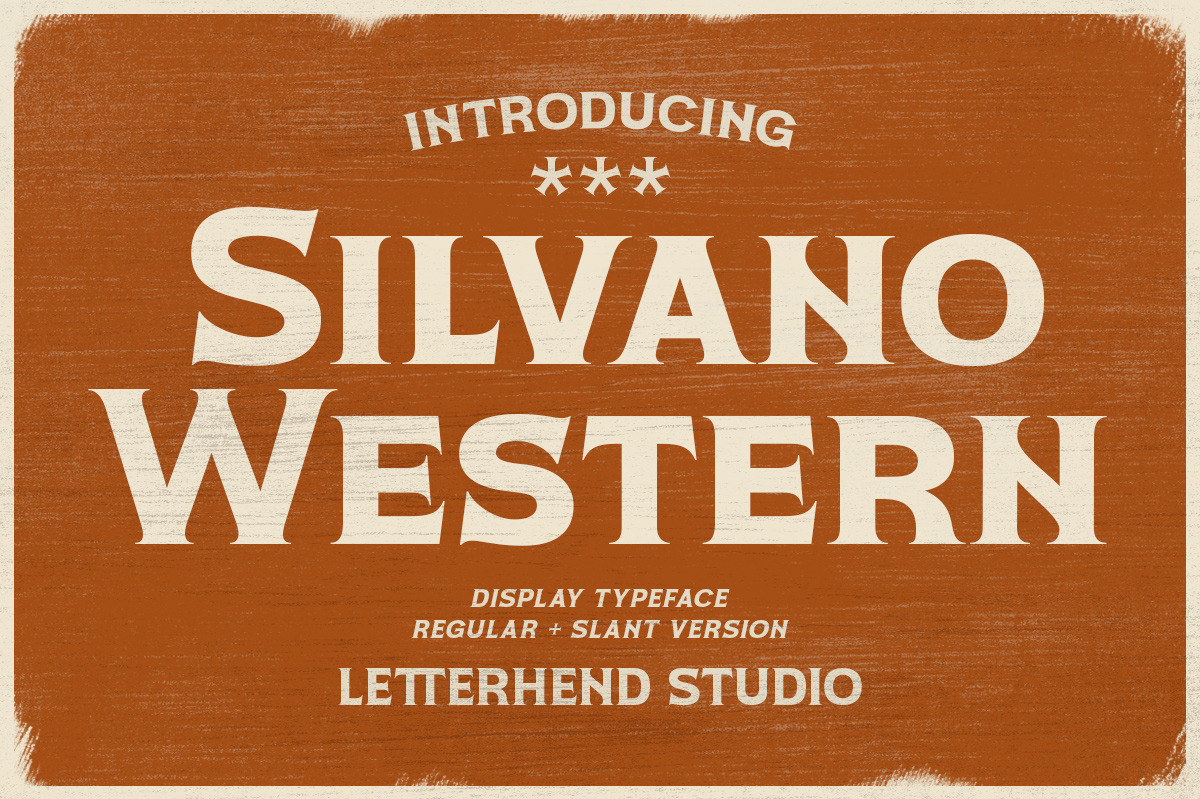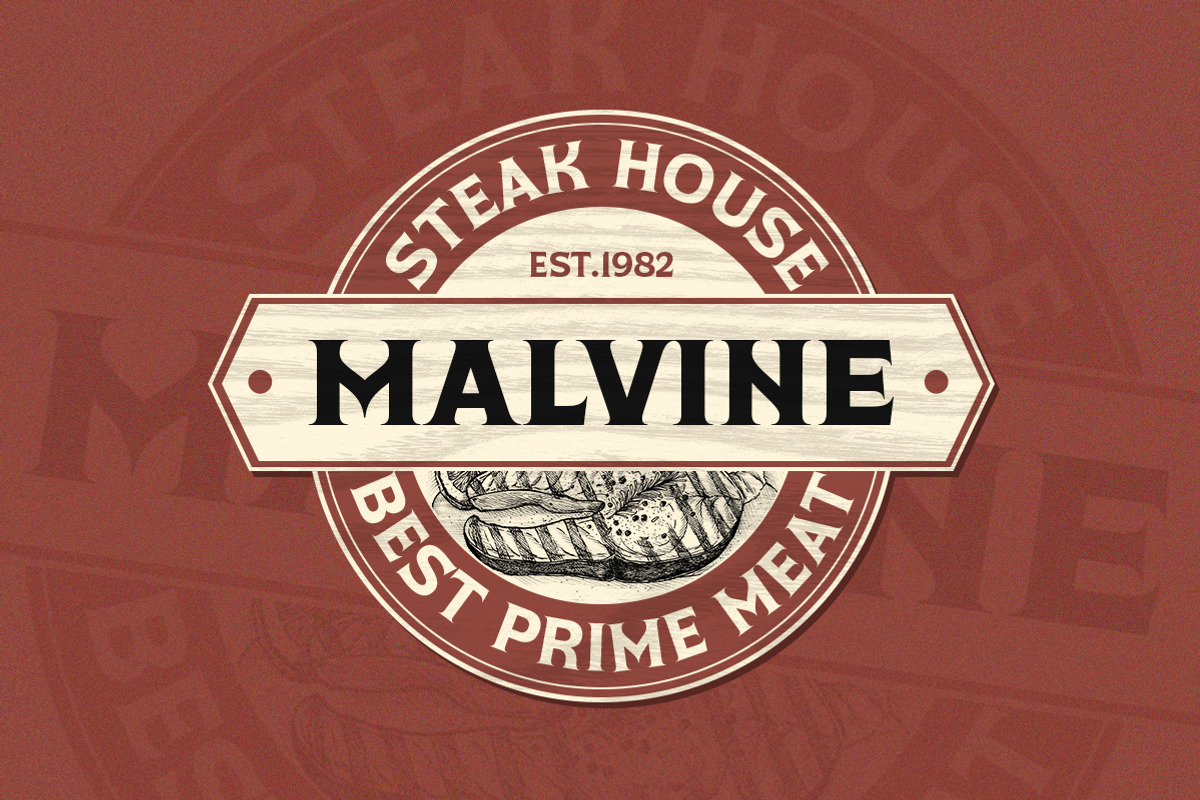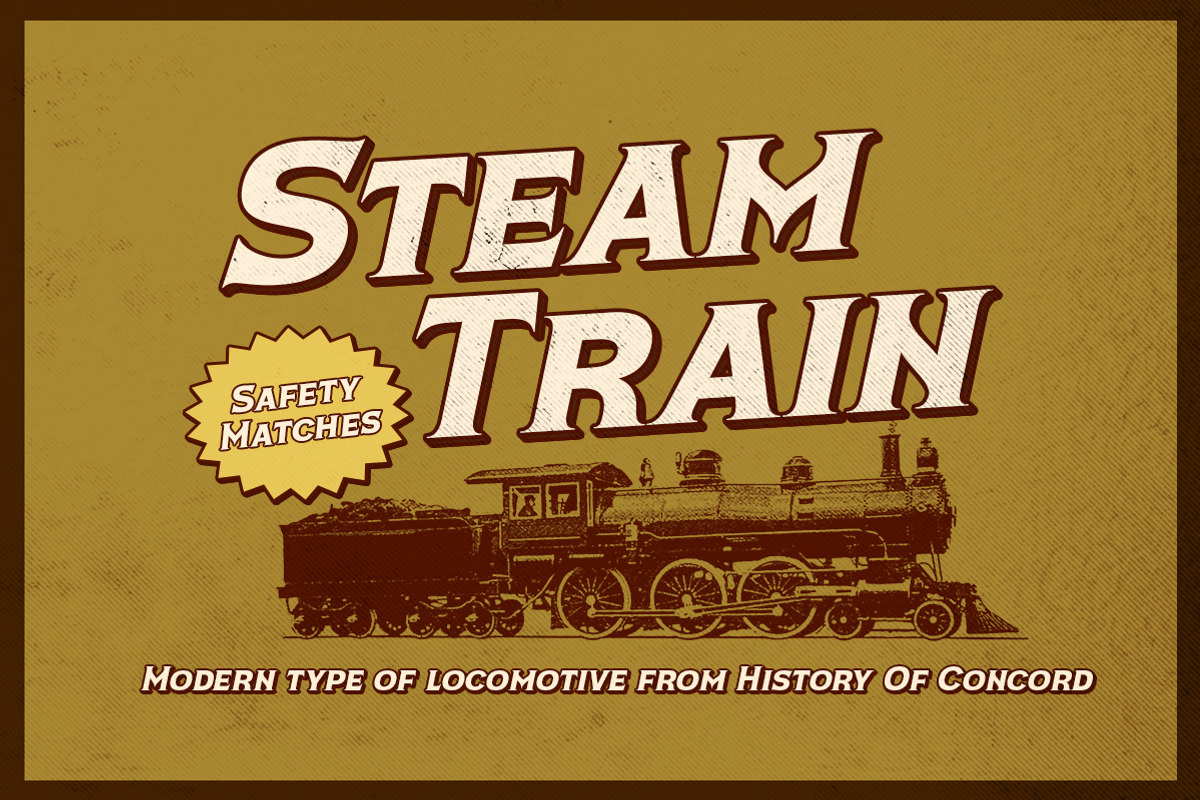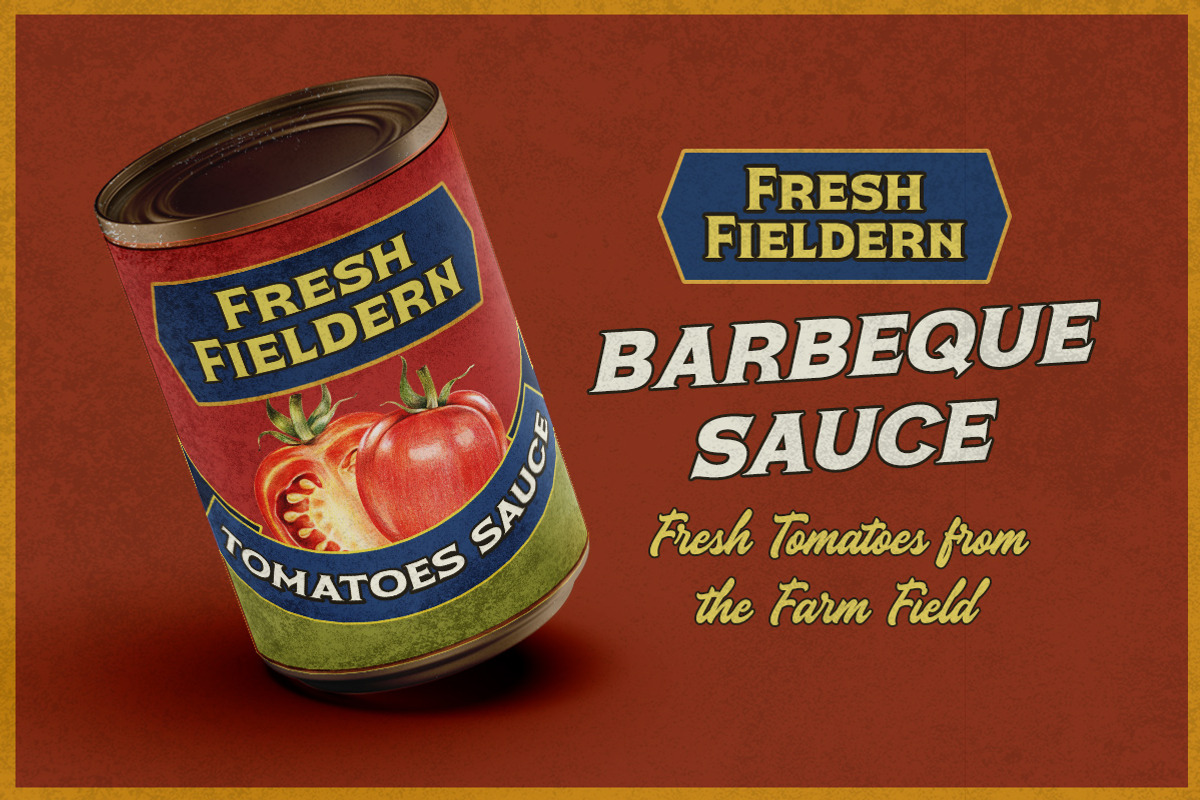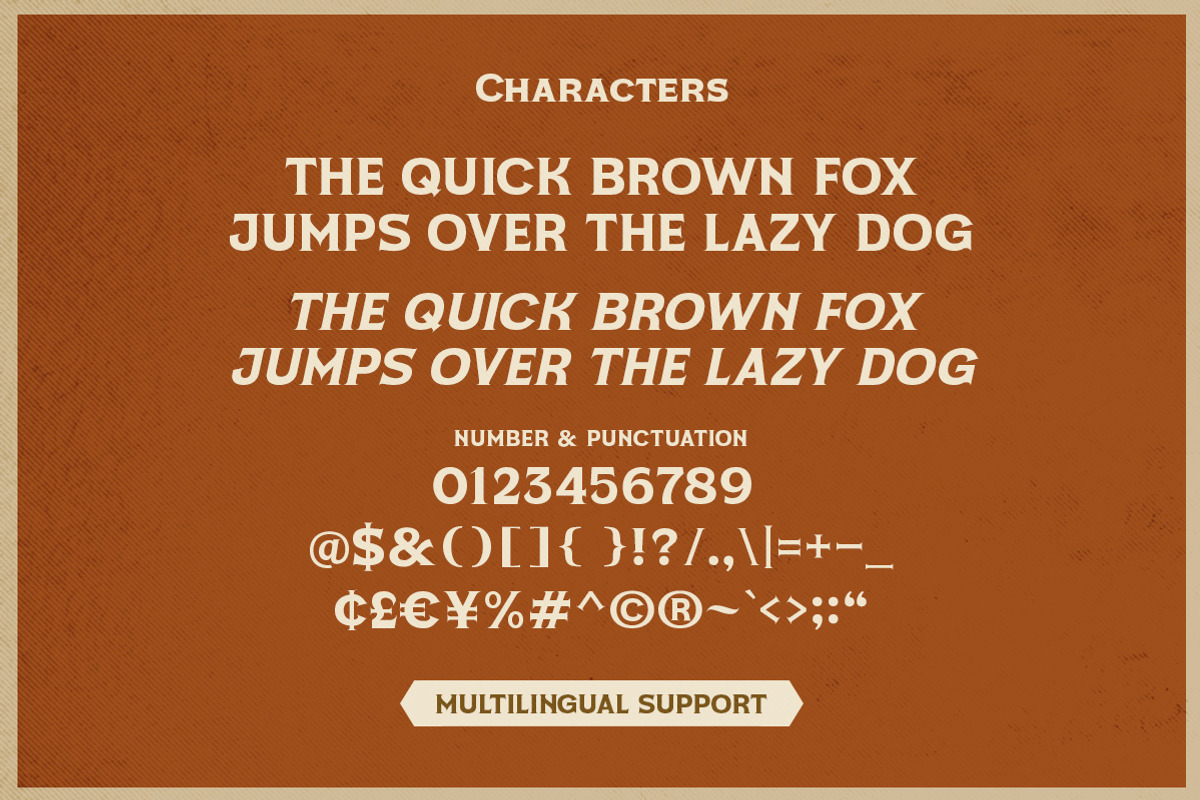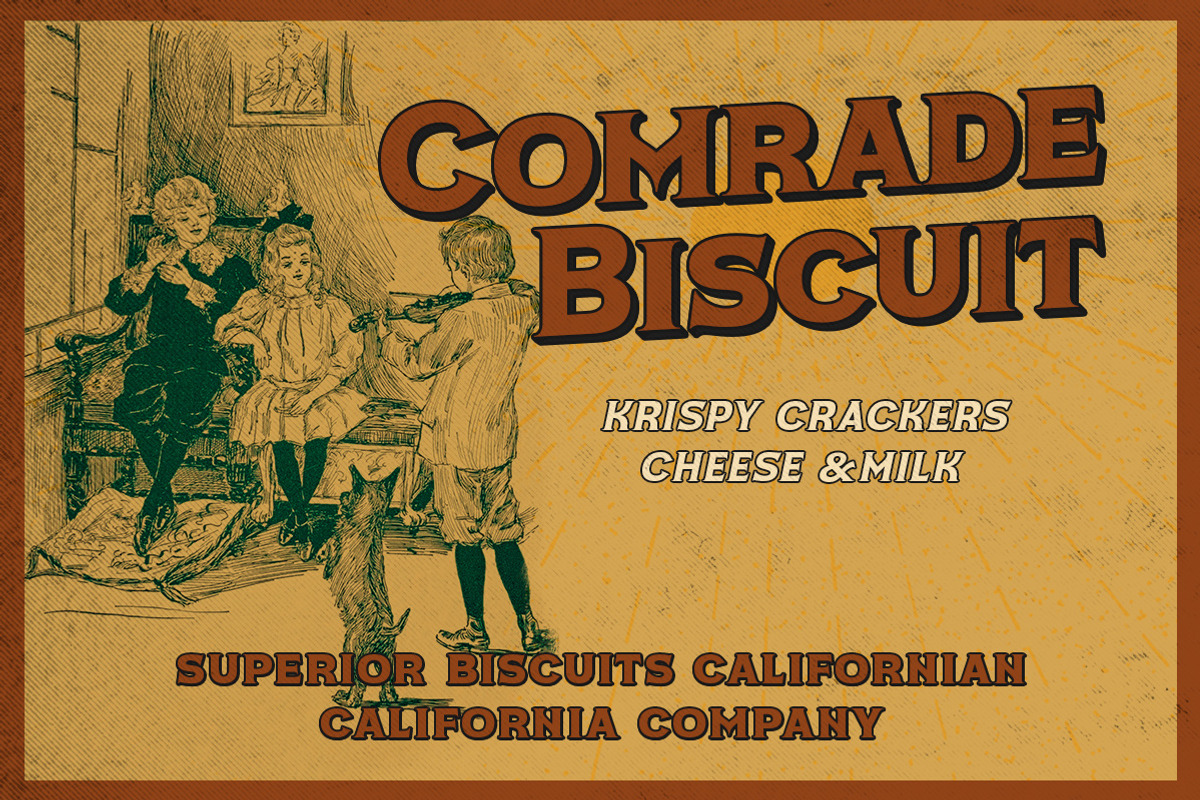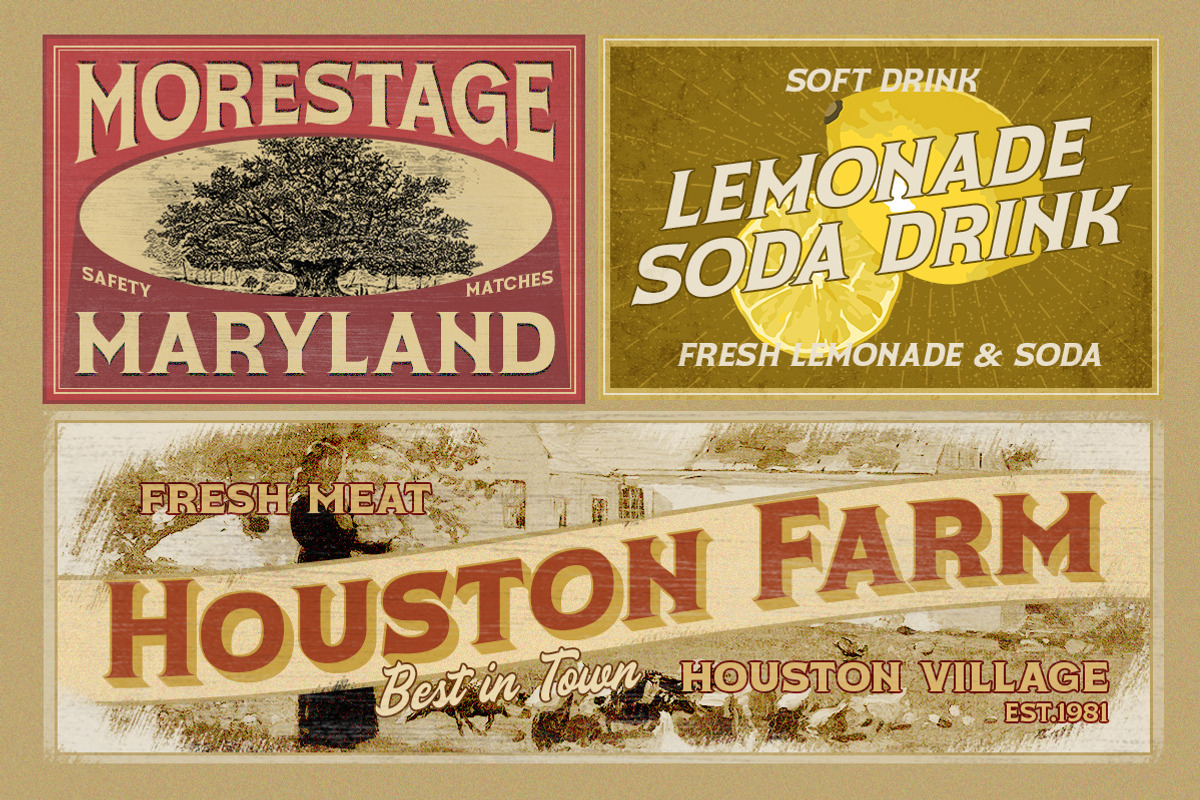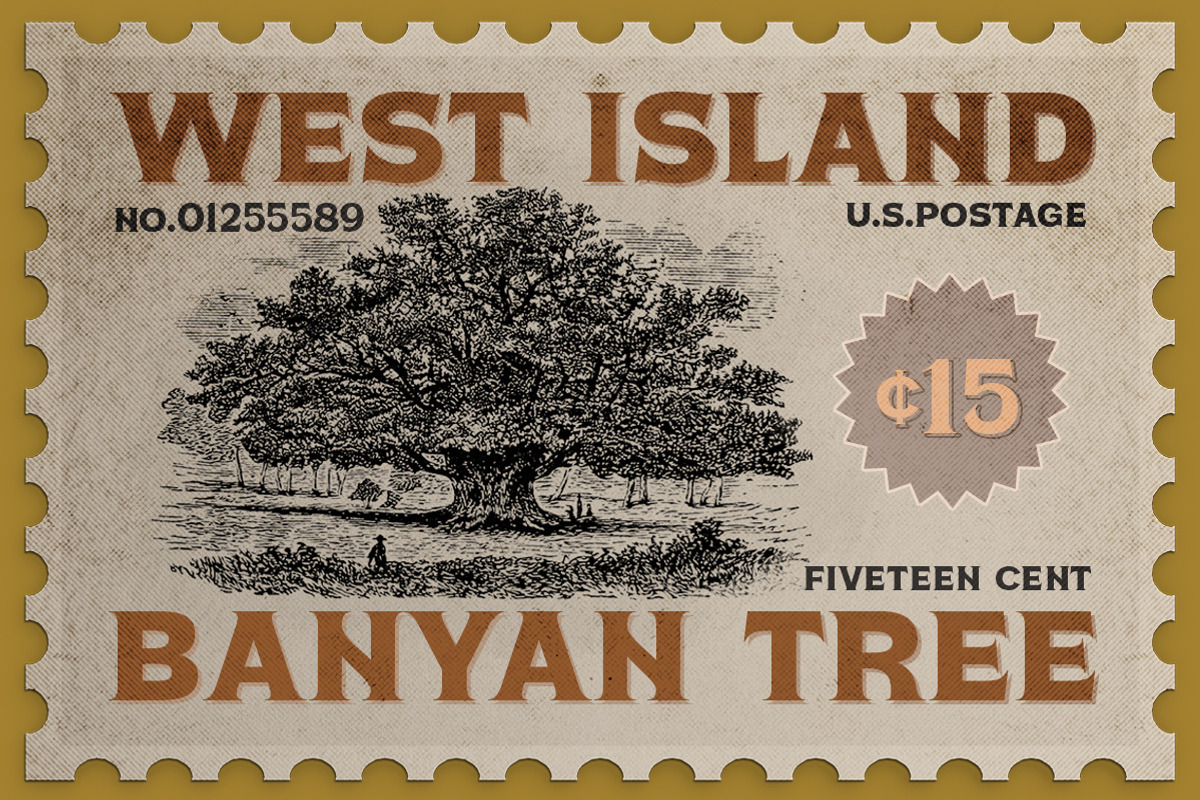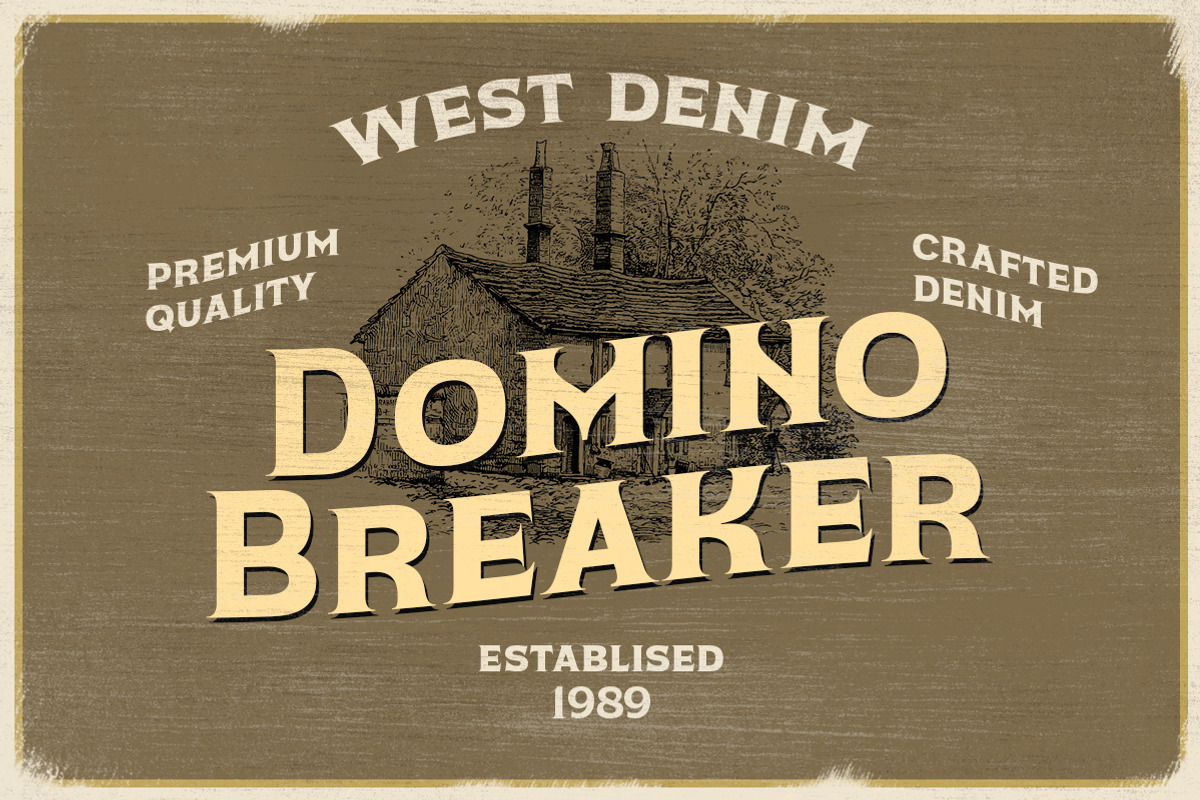
Silvano Western - Display Typeface
Silvano Western is a display typeface suitable for design needs with a touch of classic western, especially in logo, and the other various formal forms such as invitations, labels, logos, magazines, books, greeting / wedding cards, packaging, fashion, make up, stationery, novels, labels or any type of advertising purpose.
- regular and slant version